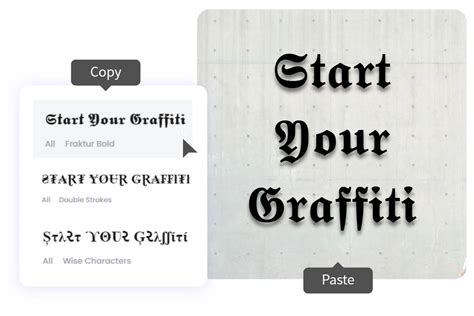
Grafitti Font Generator. Web simply enter your text, select your desired color and size, and hit generate button. How does the graffiti generator work?
Our most daring and original sources for street graffiti or a mural. Ready to personalize and share in facebook and twitter. How does the graffiti generator work? Graffiti is an artistic expression that is usually done on public buildings, walls, or trains. Our font generator allows you to easily customize and experiment with different text effects, giving your creations a unique and. Web we created this free graffiti text generator web app to help you to easily create and draw your name in graffiti, create your first graffiti or a graffiti logo. Web transform your words into vibrant, edgy designs that capture the essence of street art. Web simply enter your text, select your desired color and size, and hit generate button.
Graffiti is an artistic expression that is usually done on public buildings, walls, or trains. Web we created this free graffiti text generator web app to help you to easily create and draw your name in graffiti, create your first graffiti or a graffiti logo. Graffiti is an artistic expression that is usually done on public buildings, walls, or trains. Web transform your words into vibrant, edgy designs that capture the essence of street art. Web simply enter your text, select your desired color and size, and hit generate button. Our font generator allows you to easily customize and experiment with different text effects, giving your creations a unique and. How does the graffiti generator work? Our most daring and original sources for street graffiti or a mural. Ready to personalize and share in facebook and twitter.